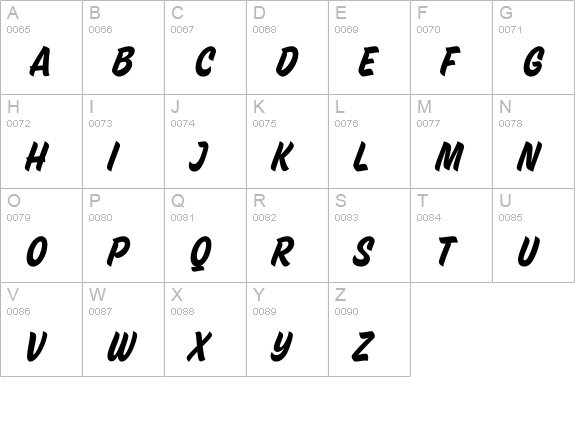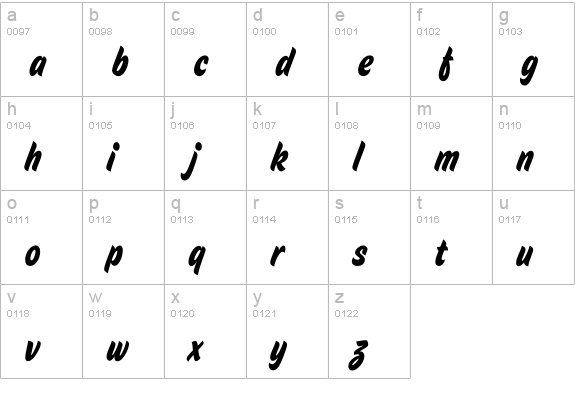
HouseMovements-Sign Font Details
HouseMovements-Sign font is a versatile and modern typeface that exudes elegance and sophistication. With its sleek lines and dynamic movements, this font is perfect for various design projects, from branding to packaging. The unique combination of sharp angles and smooth curves gives HouseMovements-Sign font a contemporary and stylish look that will make your text stand out. The best part is, HouseMovements-Sign font is available for free download at FontsMarket.com. This means you can easily access this eye-catching font and use it in your creative endeavors without any cost. Whether you're working on a logo, poster, website, or any other design project, HouseMovements-Sign font will add a touch of class and flair to your work. Download it now and elevate your designs with this stunning font.